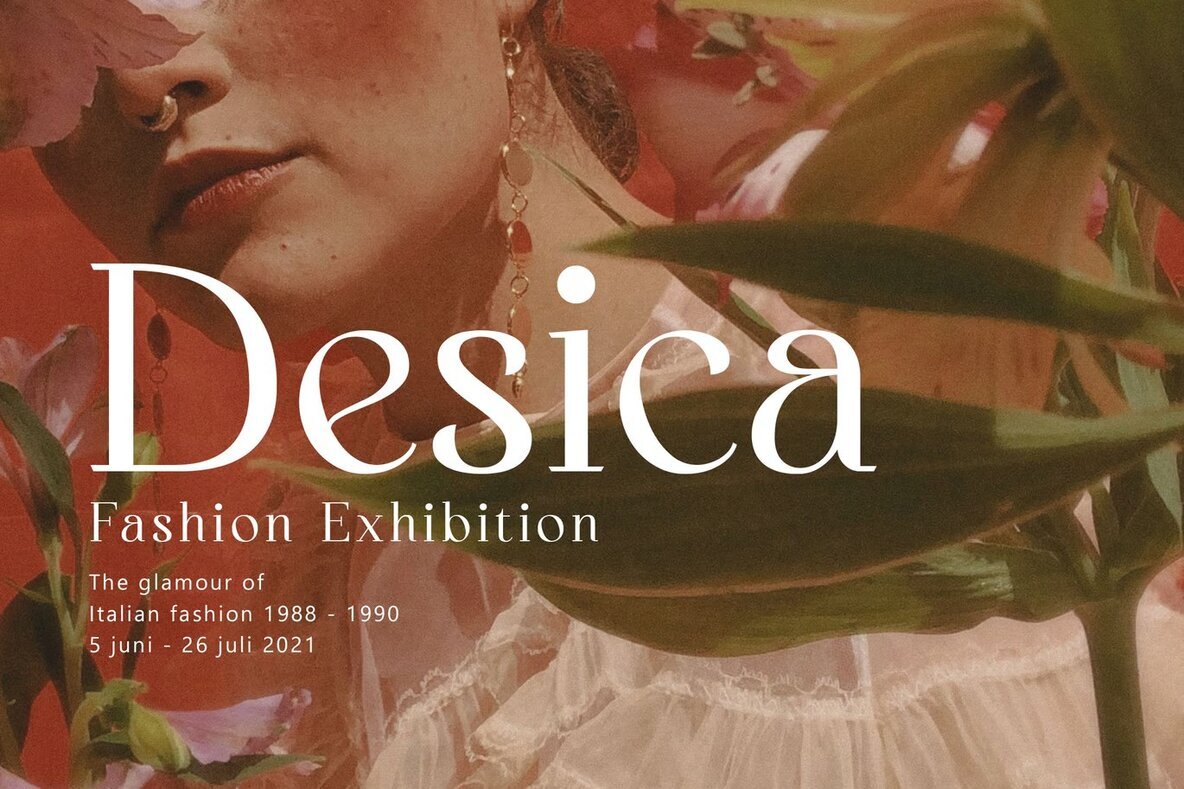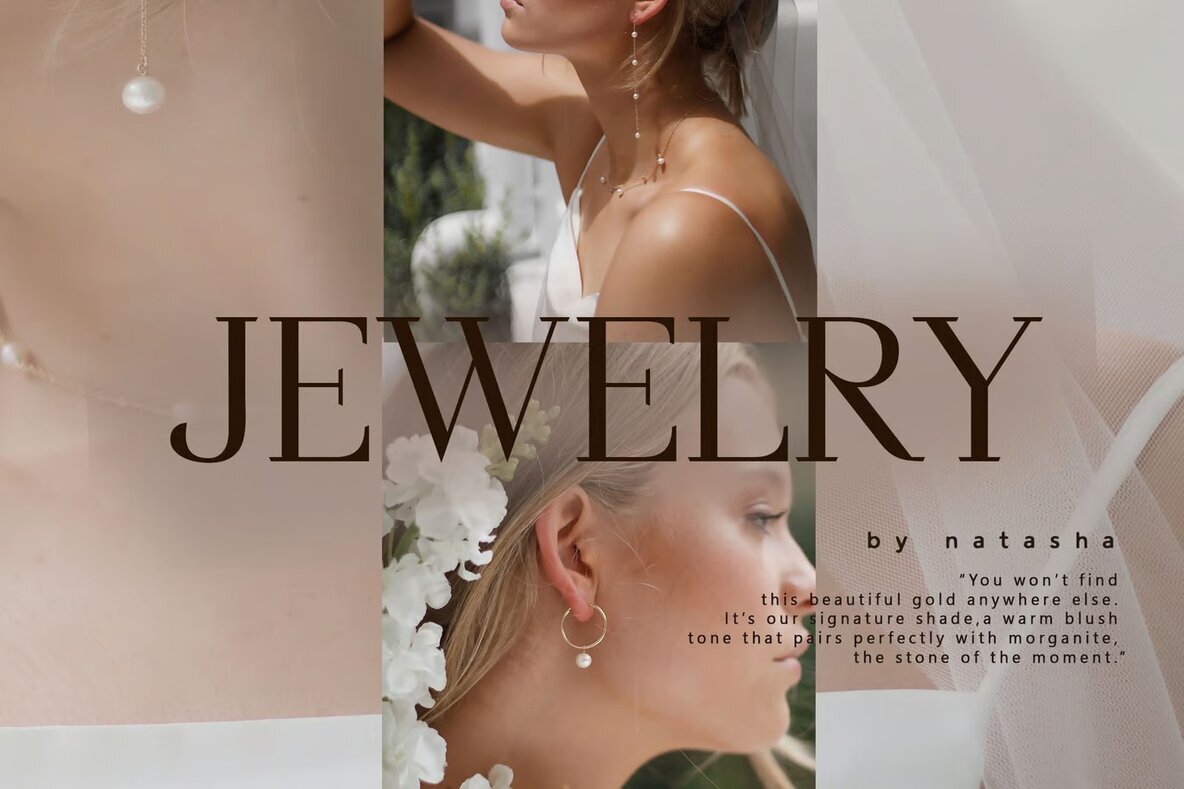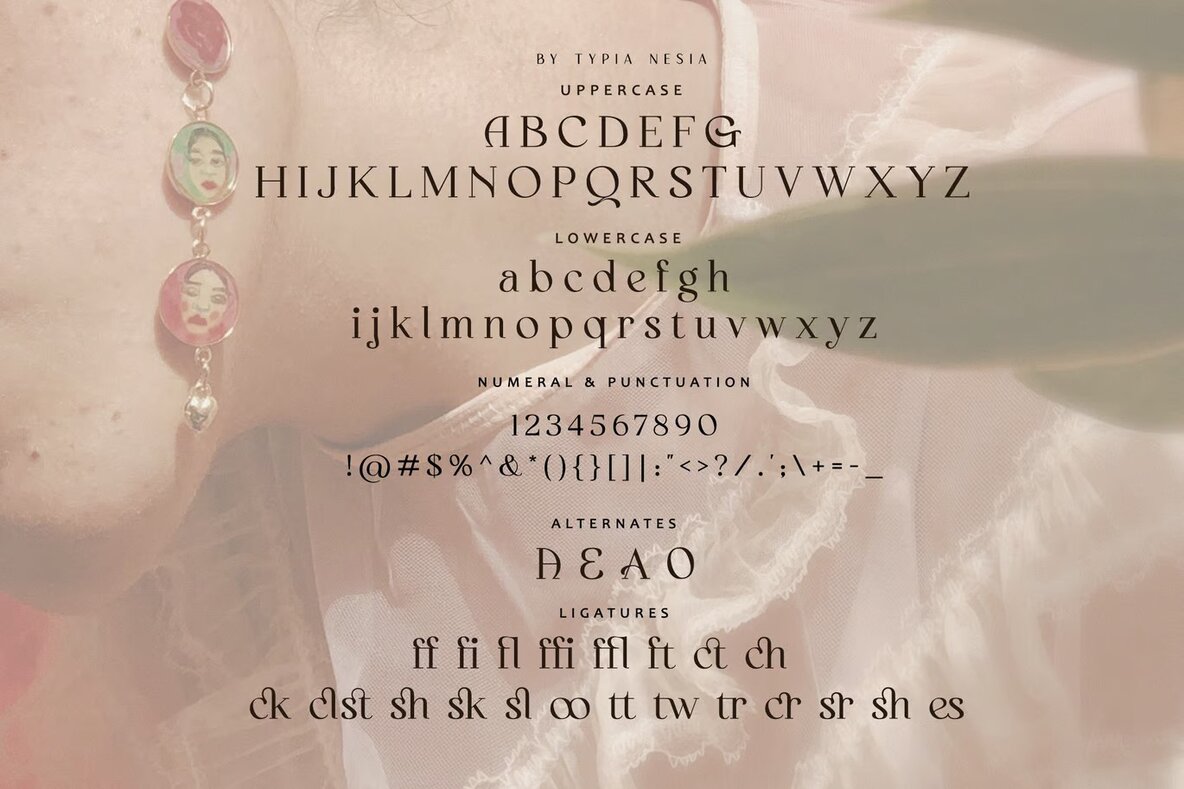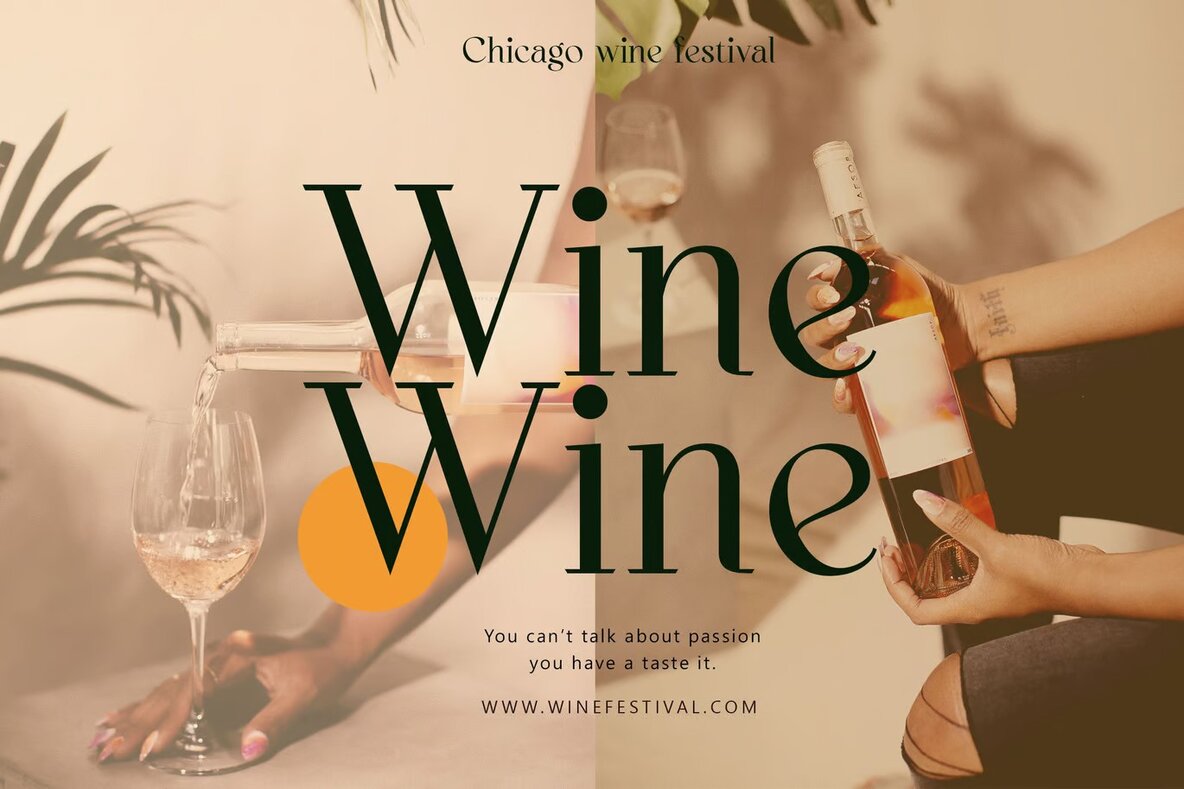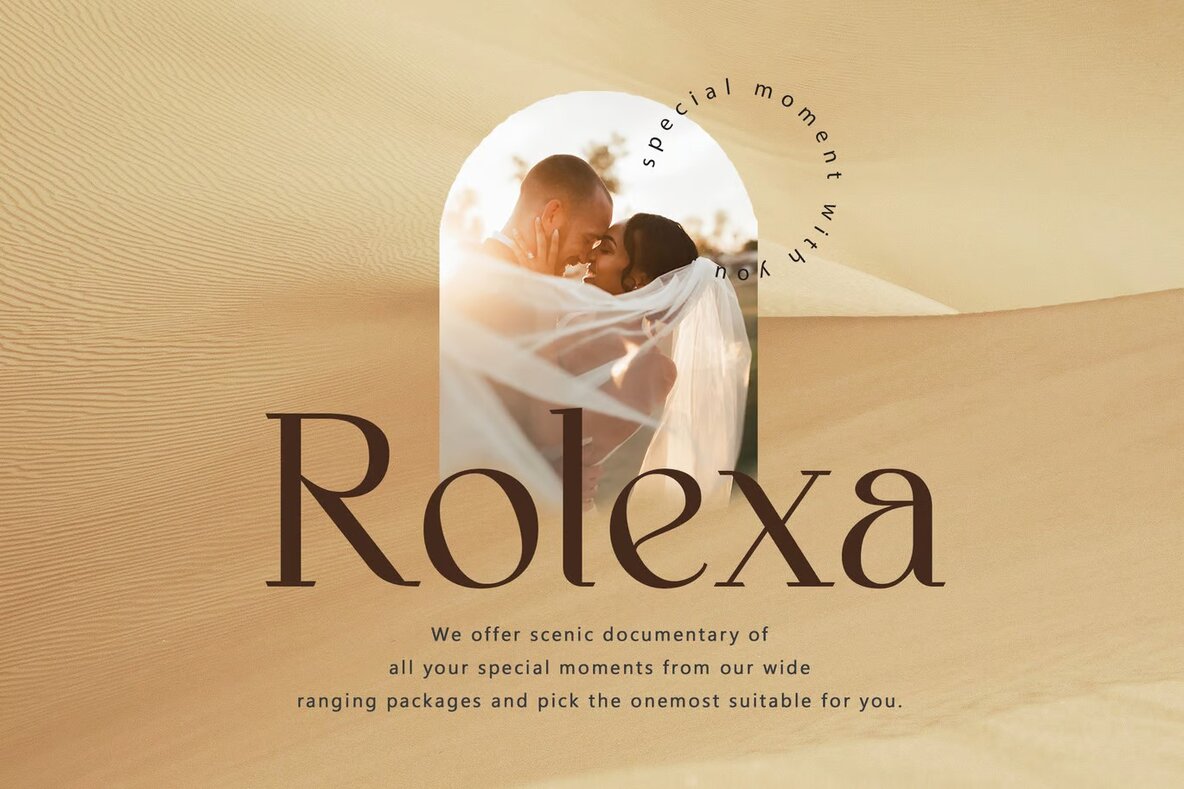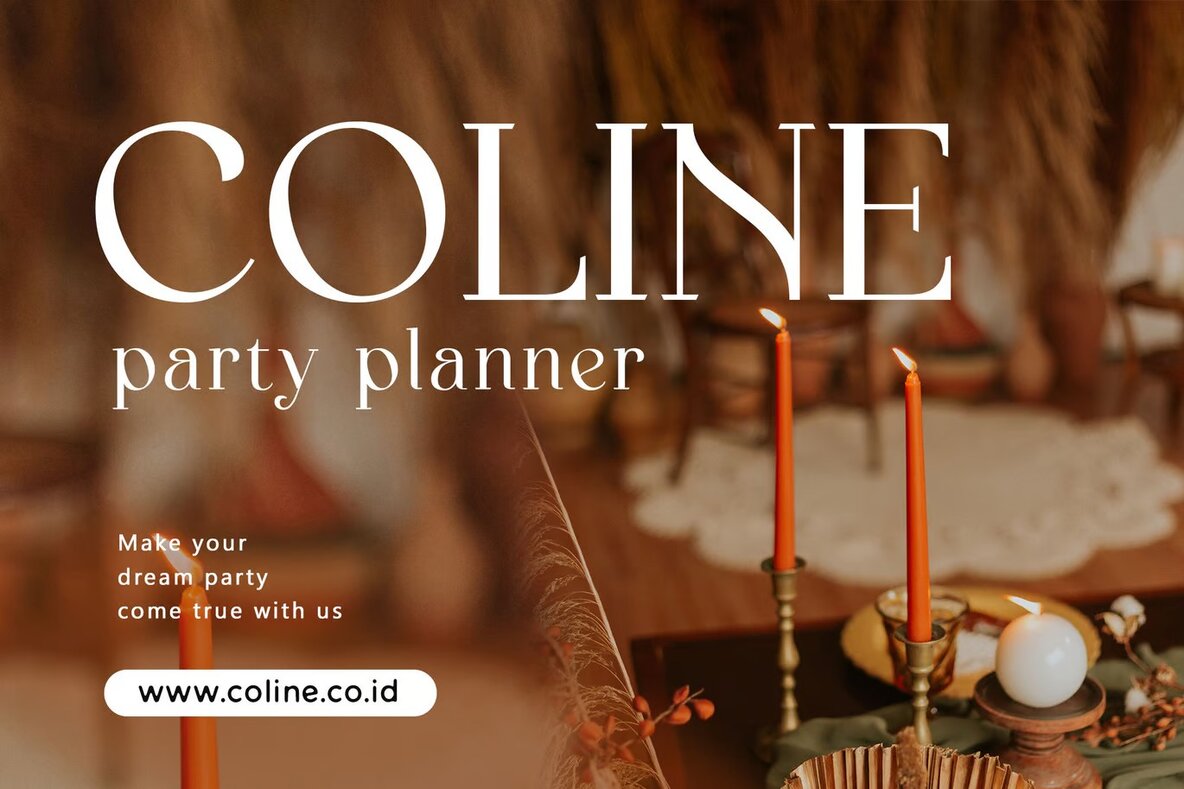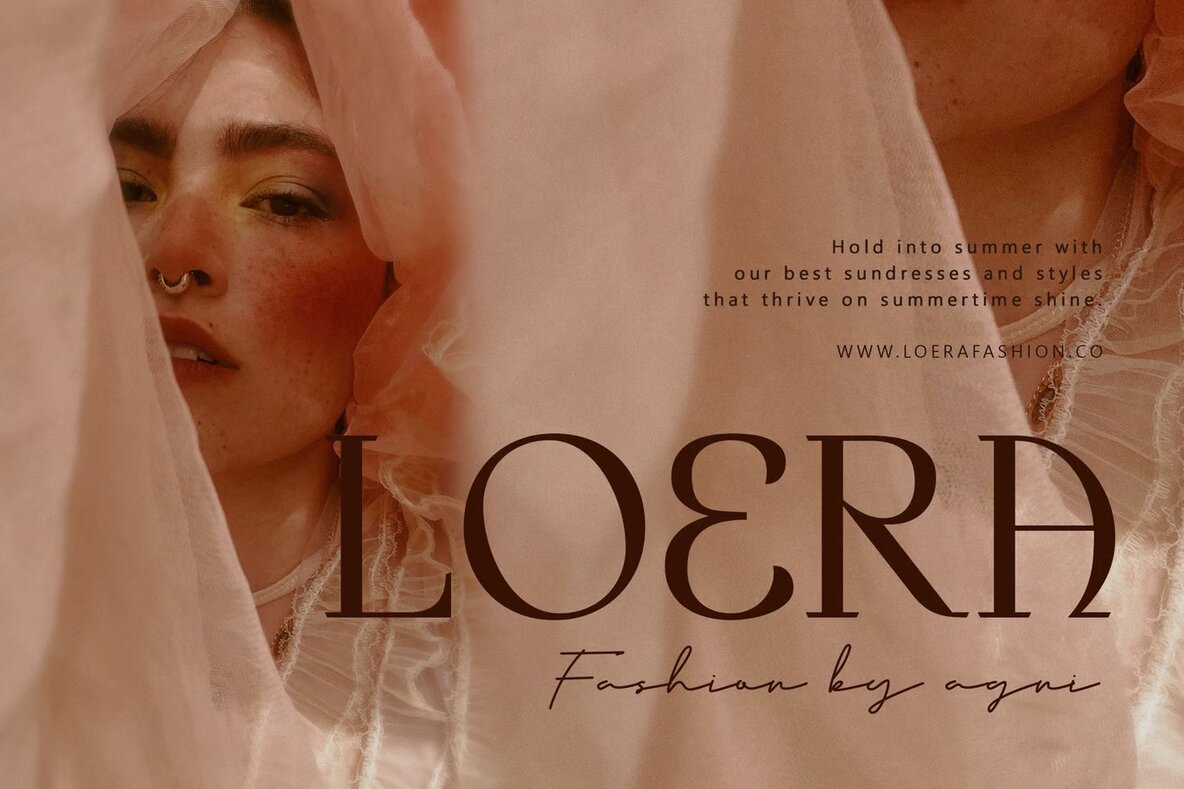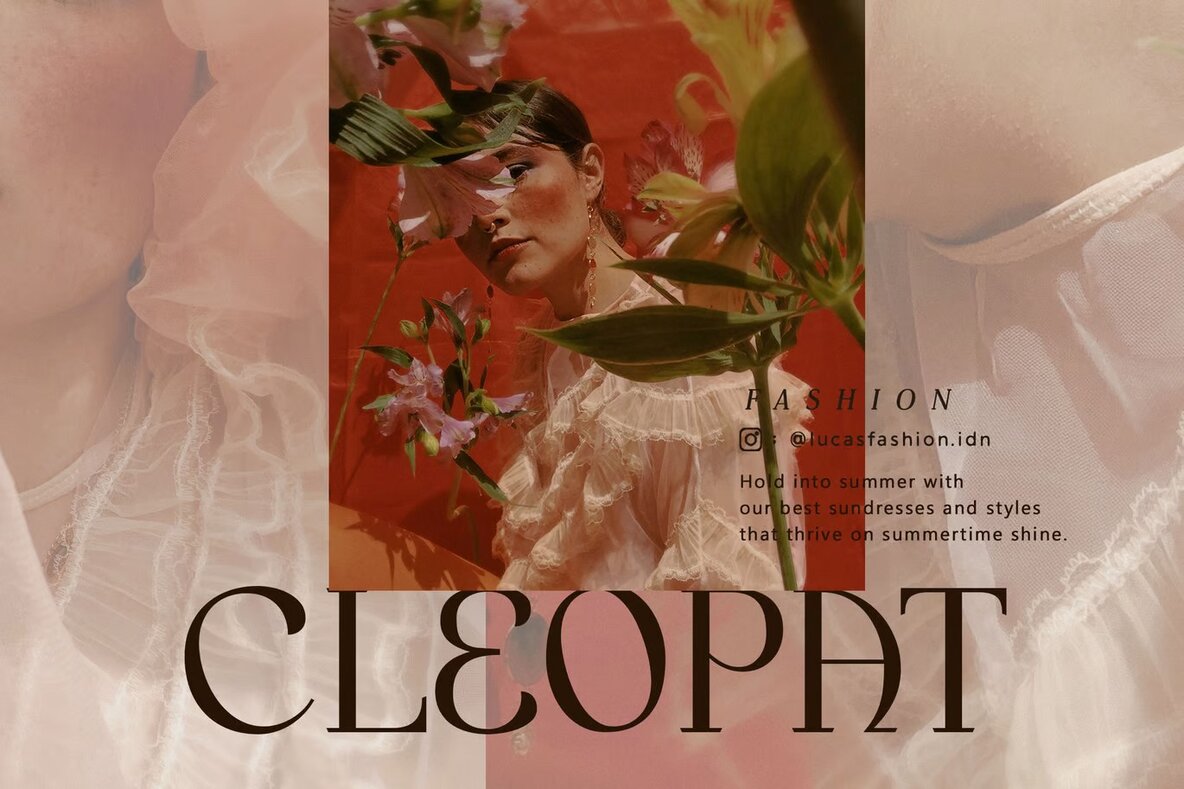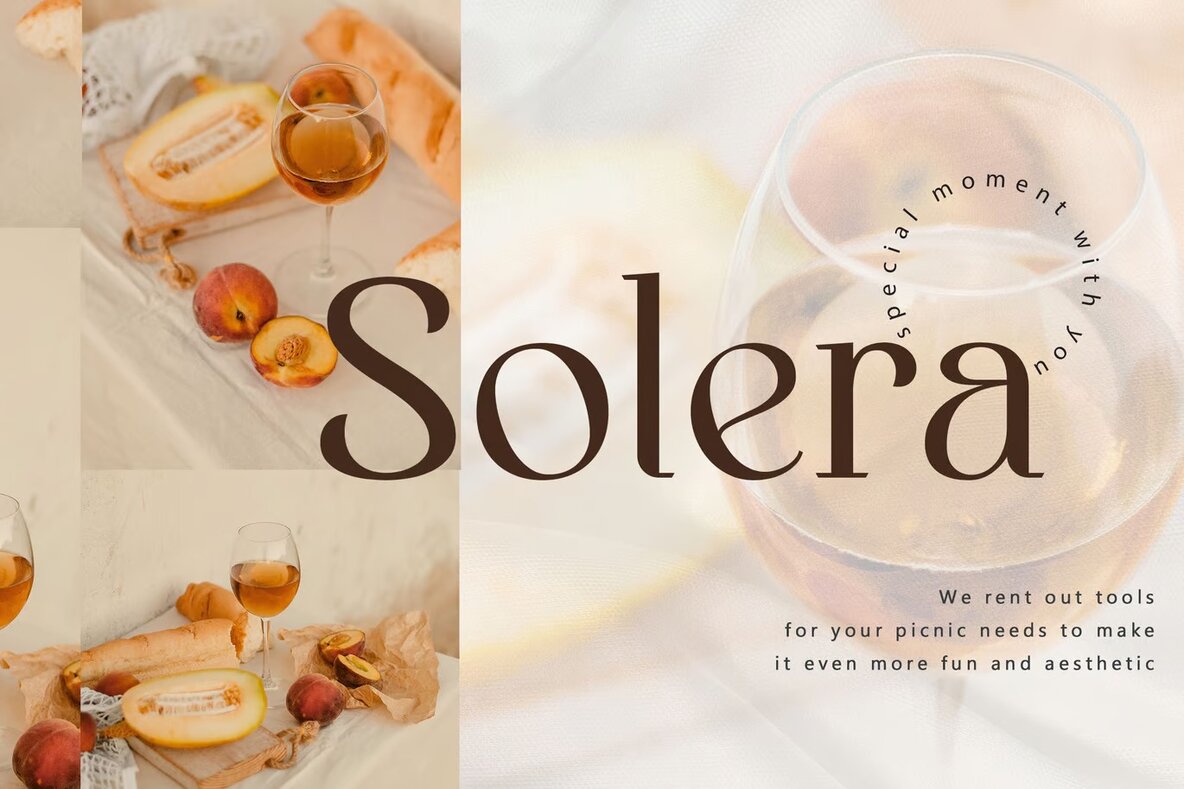
Bella Queta Font
Bella Queta Regular
This elegant serif font adds a touch of sophistication and refinement to any design project. With its classic and vintage appeal, it is ideal for high-end branding, editorial headlines, and stylish magazine layouts. Its contrasting strokes and decorative curves make it perfect for formal settings, conveying a luxurious and timeless aesthetic.